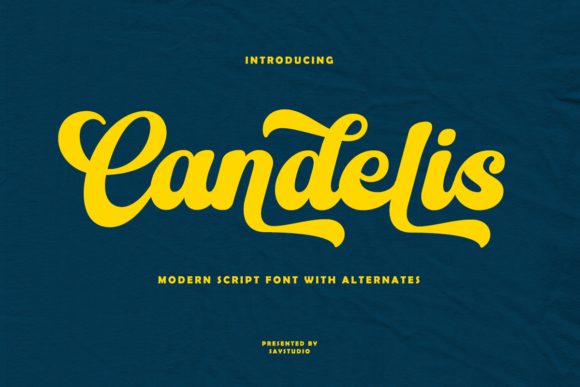
The Candelis Font: A Designer’s Dream Come True
I’ll never forget the moment I stumbled upon the Candelis font. I was working on a wedding invitation project for a client, and I was struggling to find the perfect script font that would make the invitation stand out. The client wanted something elegant, bold, and sophisticated, but not too over-the-top. As soon as I saw Candelis, I knew I had found the one. Its incredibly versatile style won me over, and I couldn’t wait to dive in and explore its features.
- ✨ Elegant and bold script font that’s perfect for making a statement
- ✅ Incredibly versatile style that works well for a variety of design projects
- 💕 Beautifully crafted letters with intricate details and flourishes
- 👍 Highly legible, even at smaller font sizes
The Not-So-Good Stuff
- 🤔 Some users may find the font a bit too bold or overpowering for certain design projects
- ⚠️ Limited availability of certain glyphs or special characters
The Story Behind Candelis
Candelis is a beautiful script font that’s inspired by the art of traditional calligraphy. The font’s creator, a talented type designer, was inspired by the intricate details and flourishes of hand-written letters. With Candelis, the designer aimed to create a font that’s both elegant and bold, with a unique personality that’s perfect for making a statement.
Q: What is the Candelis font?
A: Candelis is an elegant and bold script font that’s perfect for creating gorgeous wedding invitations, beautiful stationery art, eye-catching social media posts, and much more!